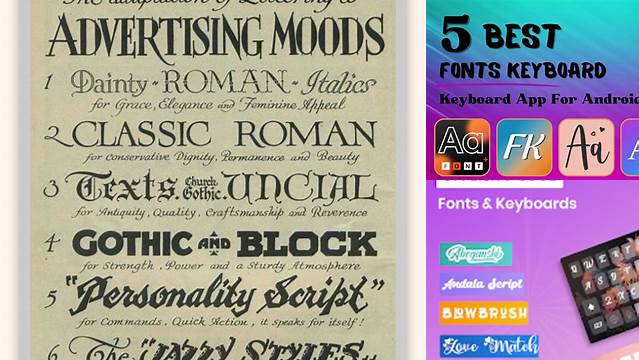
Best Keyboard Font Apps: Cool & Stylish Fonts For You
Hey guys! Ever feel like your phone's keyboard is a bit...blah? Like it's missing that oomph, that pizzazz that truly reflects your personality? Well, you're not alone! The default keyboard fonts on our smartphones can be a bit, shall we say, underwhelming. But don't worry, there's a whole universe of keyboard font apps out there just waiting to be discovered. These best keyboard font apps can transform your everyday typing into a visually stunning experience. From elegant scripts to playful doodles, the possibilities are endless. So, ditch the boring defaults and let's dive into the exciting world of keyboard font customization. We're gonna explore the top apps that'll help you express yourself, one keystroke at a time. Let's get started!
Why Bother with Custom Keyboard Fonts?
Okay, okay, I hear you. Maybe you're thinking, "Fonts? On a keyboard? Is that really necessary?" And honestly, if you're perfectly content with the standard Arial or Helvetica staring back at you, then maybe not. But for the rest of us, those who crave a little extra flair in our digital lives, custom keyboard fonts are a game-changer. These cool keyboard fonts are more than just a visual upgrade; they're a way to inject personality into your text messages, social media posts, and even your emails. Think about it: your words are your voice, and your font is the tone in which you deliver them. A playful font can add a touch of whimsy to a casual conversation, while an elegant script can lend a touch of sophistication to a more formal message. The keyboard font apps allow you to communicate your personality through every single key that you tap on your phone or tablet.
But the benefits go beyond aesthetics. A different custom keyboard font style can even improve your typing experience. A well-designed font can be easier on the eyes, reducing strain during long typing sessions. And for those with visual impairments, a larger or more distinct font can make all the difference. So, whether you're a style-conscious social butterfly, a meticulous professional, or someone who simply wants to make their phone a little more you, exploring custom keyboard fonts is definitely worth your while. Moreover, with the availability of various keyboard fonts for Android and iOS, there’s no limit to how creative you can get. You can choose a font that resonates with your current mood or opt for one that reflects your professional persona. The flexibility and personalization these apps offer make your digital communication a true reflection of yourself.
Top Apps for Keyboard Fonts: Our Handpicked Selection
Alright, let's get down to the nitty-gritty. You're convinced that custom keyboard fonts are the way to go (yay!), but where do you even begin? The app stores are overflowing with options, and sifting through them all can feel like searching for a needle in a haystack. Fear not! I've done the heavy lifting for you and compiled a list of some of the absolute best apps for keyboard fonts and styles. These keyboard apps with fonts stand out from the crowd, offering a wide range of fonts, user-friendly interfaces, and extra features to enhance your typing experience. We're talking about apps that not only let you change your fonts but also often include things like custom themes, emoji keyboards, and even gesture typing. So, buckle up, because we're about to dive into the crème de la crème of keyboard font apps. Get ready to discover your new favorite way to type!
1. Fonts Keyboard
First up, we have Fonts Keyboard, a name that pretty much says it all. This app is a powerhouse when it comes to cool keyboard fonts, boasting a massive library of options to suit every taste. Whether you're into sleek and modern sans-serifs, elegant scripts that look like they came straight from a calligraphy pen, or funky, playful fonts that scream personality, Fonts Keyboard has got you covered. And it's not just about the sheer quantity of fonts; the quality is top-notch too. The fonts are well-designed, legible, and look fantastic on screen. But Fonts Keyboard is more than just a font repository. It's a fully functional keyboard app with a range of features to enhance your typing experience. You'll find a built-in emoji keyboard, allowing you to easily add those expressive little icons to your messages. There are also themes to customize the overall look of your keyboard, and even a clipboard feature for quickly pasting frequently used text. The interface is clean and intuitive, making it easy to browse fonts, preview them, and apply them to your keyboard. Plus, Fonts Keyboard is constantly updated with new fonts and features, so you'll never run out of options. If you're serious about custom keyboard font style, this is definitely an app you need to check out.
The app's interface is user-friendly, making it simple to navigate through the extensive collection of fonts and select the one that resonates with your style. Moreover, Fonts Keyboard doesn’t just stop at fonts; it provides a comprehensive customization experience. From themes that change the entire look of your keyboard to an integrated emoji keyboard for adding expressive icons to your messages, Fonts Keyboard is a one-stop-shop for keyboard personalization. The inclusion of a clipboard feature for quick pasting of frequently used text further enhances its usability. With regular updates that bring new fonts and features, Fonts Keyboard ensures that your keyboard remains fresh and engaging. It’s a top recommendation for anyone looking to seriously elevate their typing experience and express their unique style through their keyboard.
2. FancyKey Keyboard
Next on our list is FancyKey Keyboard, an app that's all about making your keyboard, well, fancy. This app takes customization to the next level, offering a dazzling array of features beyond just fonts. Of course, it has a fantastic selection of stylish keyboard fonts, ranging from elegant and classic to bold and modern. You'll find plenty of options to match your personal aesthetic. But where FancyKey Keyboard really shines is in its customizability. This app lets you tweak almost every aspect of your keyboard, from the colors and backgrounds to the key shapes and sizes. You can even add your own photos as keyboard backgrounds, creating a truly unique and personalized typing experience. And the customization doesn't stop there. FancyKey Keyboard also includes a powerful theme store, where you can download pre-made themes created by other users. This is a great way to discover new looks for your keyboard and add some serious visual flair. Beyond the aesthetics, FancyKey Keyboard is also a highly functional keyboard app. It features intelligent autocorrect and prediction, making typing faster and more accurate. There's also support for multiple languages, and a handy one-handed mode for easier typing on larger screens. If you're looking for an app that lets you completely transform your keyboard into a work of art, FancyKey Keyboard is definitely worth checking out.
The hallmark of FancyKey Keyboard is its unparalleled level of customization, allowing users to tweak virtually every aspect of their keyboard. This includes the colors, backgrounds, and even the shapes and sizes of the keys. The ability to use personal photos as keyboard backgrounds adds an extra layer of personalization, making each keyboard truly unique. The theme store within FancyKey Keyboard is another standout feature, offering a plethora of pre-made themes designed by other users. This not only provides a vast array of options but also fosters a community-driven approach to keyboard customization. Functionality is not compromised for aesthetics in FancyKey Keyboard. It boasts intelligent autocorrect and prediction, which enhances typing speed and accuracy. Multilingual support and a one-handed mode make it a practical choice for a diverse range of users. If you aspire to turn your keyboard into a masterpiece that reflects your individual style and preferences, FancyKey Keyboard is an excellent choice.
3. Kika Keyboard
Kika Keyboard is another top contender in the world of keyboard apps with fonts, offering a comprehensive package of features and customization options. This app is a favorite among users who want a keyboard that's both stylish and functional. Kika Keyboard boasts a vast library of fonts, covering a wide range of styles from elegant and refined to playful and quirky. You're sure to find fonts that match your personality and mood. But Kika Keyboard is more than just fonts. It's a full-fledged keyboard app packed with features. You'll find a huge selection of themes to customize the look and feel of your keyboard, as well as an integrated GIF search engine for adding animated flair to your messages. There's also a built-in emoji keyboard with thousands of emojis, stickers, and emoticons to choose from. And for those who love to express themselves through sound, Kika Keyboard even offers custom keyboard sounds, from classic clicks to playful animal noises. On the functionality front, Kika Keyboard doesn't disappoint. It offers smart autocorrect and word prediction, making typing a breeze. It also supports multiple languages and includes a handy voice input feature. With its extensive features and customization options, Kika Keyboard is a great choice for anyone who wants a keyboard that's both fun and functional.
Kika Keyboard distinguishes itself with a comprehensive suite of features that cater to both style and functionality, making it a favorite among users who seek a balanced keyboard experience. Its extensive font library covers a broad spectrum of styles, ensuring there’s something for every user’s taste. Beyond fonts, Kika Keyboard is loaded with features that enhance the overall typing experience. The availability of a vast array of themes allows for complete visual customization, while the integrated GIF search engine adds a touch of animation to messages. The built-in emoji keyboard, brimming with thousands of emojis, stickers, and emoticons, ensures expressive communication is always at your fingertips. For those who enjoy auditory feedback, Kika Keyboard offers custom keyboard sounds, ranging from traditional clicks to playful sound effects. Functionality is a key strength of Kika Keyboard, with smart autocorrect and word prediction ensuring efficient and accurate typing. Multilingual support and voice input capabilities further broaden its appeal, making it a versatile choice for a wide range of users. Kika Keyboard is an excellent option for anyone seeking a keyboard that seamlessly blends fun and functionality.
Finding the Perfect Font: Tips and Tricks
Okay, so you've got a few keyboard font apps downloaded, and you're staring at a sea of fonts. Now what? How do you choose the perfect font to represent your unique style? Don't worry, I've got some tips and tricks to help you navigate the font jungle and find the gems that truly shine. The first thing to consider is your personality and the message you want to convey. Are you going for playful and whimsical? Or sophisticated and professional? Your font should reflect that. A bubbly, hand-drawn font might be perfect for casual chats with friends, but it might not be the best choice for a formal email. Similarly, an elegant script font can add a touch of class, but it might not be the most legible option for everyday typing. Legibility is another crucial factor. While a fancy, ornate font might look beautiful, it's not much use if you can't easily read it. Look for fonts that are clear, well-spaced, and easy on the eyes. Avoid fonts that are too thin, too condensed, or have excessive flourishes that can make them difficult to decipher. The best fonts for keyboards are the ones that not only reflect your personality but are also readable in various contexts.
Don't be afraid to experiment! Most keyboard font apps let you preview fonts before you apply them, so take advantage of that feature. Type out some sample messages and see how the font looks in different contexts. Try it in different apps, too, as some fonts may look better in certain applications than others. And finally, don't feel like you have to stick with one font forever. One of the great things about keyboard font apps is that you can change your font as often as you like. Feel free to switch things up depending on your mood, the occasion, or just because you feel like it. Finding the perfect font is a journey, not a destination. Enjoy the process of exploring different styles and discovering the ones that truly speak to you.
When selecting a font, it’s essential to consider the legibility across various screen sizes and resolutions. A font that looks crisp on a high-resolution display might appear cluttered on a smaller screen. Therefore, testing the font in different apps and contexts is crucial. Many keyboard apps with fonts also offer customization options such as adjusting the font size and boldness, which can significantly impact legibility. Furthermore, it's wise to consider the contrast between the font and the keyboard background. A low-contrast combination can strain the eyes, while a high-contrast pairing enhances readability. Remember, the goal is to find a font that not only expresses your style but also ensures comfortable and efficient typing.
Beyond Fonts: Other Keyboard Customization Options
So, we've talked a lot about fonts, but the world of keyboard customization goes way beyond just the letters themselves. The best keyboard font apps often come packed with other features that let you personalize your typing experience even further. We're talking about themes, key sounds, emoji keyboards, and more. Let's take a quick look at some of these other customization options. Themes are a great way to change the overall look and feel of your keyboard. Many apps offer a wide variety of pre-made themes, ranging from minimalist designs to vibrant, colorful layouts. You can often customize themes further by changing the background color, key color, and even the shape of the keys. Custom key sounds are another fun way to personalize your keyboard. Instead of the standard click-clack, you can choose from a range of sounds, from classic typewriter sounds to playful animal noises. Just be mindful of your surroundings – a loud, quirky key sound might not be appropriate in a quiet office or library. Emoji keyboards are a must-have for many users, and most keyboard font apps include them. Look for an app with a wide selection of emojis, stickers, and emoticons to add some personality to your messages. Some apps even offer animated emojis or the ability to create your own custom emojis.
Other keyboard customization options include gesture typing, which allows you to type by swiping your finger across the keyboard, and clipboard managers, which save your recent copied text for easy pasting. Some apps also offer advanced features like auto-text replacement, which lets you create shortcuts for frequently used phrases. The key is to explore the options available in your chosen app and find the features that best suit your needs and preferences. Customizing your keyboard is all about making your typing experience more enjoyable and efficient. By exploring the full range of options, you can create a keyboard that's truly your own.
When exploring other customization options, consider features that enhance both aesthetics and functionality. For instance, a well-designed theme not only looks appealing but also improves visibility and reduces eye strain. Key sounds can provide tactile feedback, making typing more satisfying, but it’s important to choose sounds that aren’t distracting or annoying. Gesture typing can significantly increase typing speed, while a clipboard manager can save time and effort by providing quick access to frequently used text snippets. Auto-text replacement is another powerful tool, allowing you to create shortcuts for complex phrases or email addresses. The keyboard apps with fonts that offer a balanced set of these features provide the most comprehensive customization experience. Ultimately, the goal is to create a keyboard that not only looks great but also enhances your productivity and makes typing a breeze.
Conclusion: Express Yourself with the Best Keyboard Fonts
So there you have it, guys! A whirlwind tour of the wonderful world of keyboard fonts and styles. I hope this article has inspired you to ditch the default and explore the endless possibilities of keyboard customization. Whether you're looking to add a touch of elegance, a splash of fun, or simply make your typing experience more enjoyable, there's a keyboard font app out there for you. Remember, your keyboard is an extension of your personality, so don't be afraid to express yourself! Experiment with different fonts, themes, and features until you find the perfect combination that reflects your unique style. The best keyboard fonts for Android and iOS are the ones that make you smile every time you type. Happy typing!
Customizing your keyboard is more than just a superficial change; it's about personalizing your digital experience. By choosing the right cool keyboard fonts and leveraging other customization options, you can create a typing environment that's both visually appealing and functionally efficient. The apps we've discussed offer a wide range of options to suit every taste and preference. From elegant scripts to playful designs, the possibilities are endless. So, take the plunge, explore the apps, and discover the fonts and features that resonate with you. Transform your keyboard into a canvas for self-expression and enjoy the journey of creating a truly personalized typing experience. Remember, your keyboard is a tool, but it’s also a reflection of who you are. Make it your own!